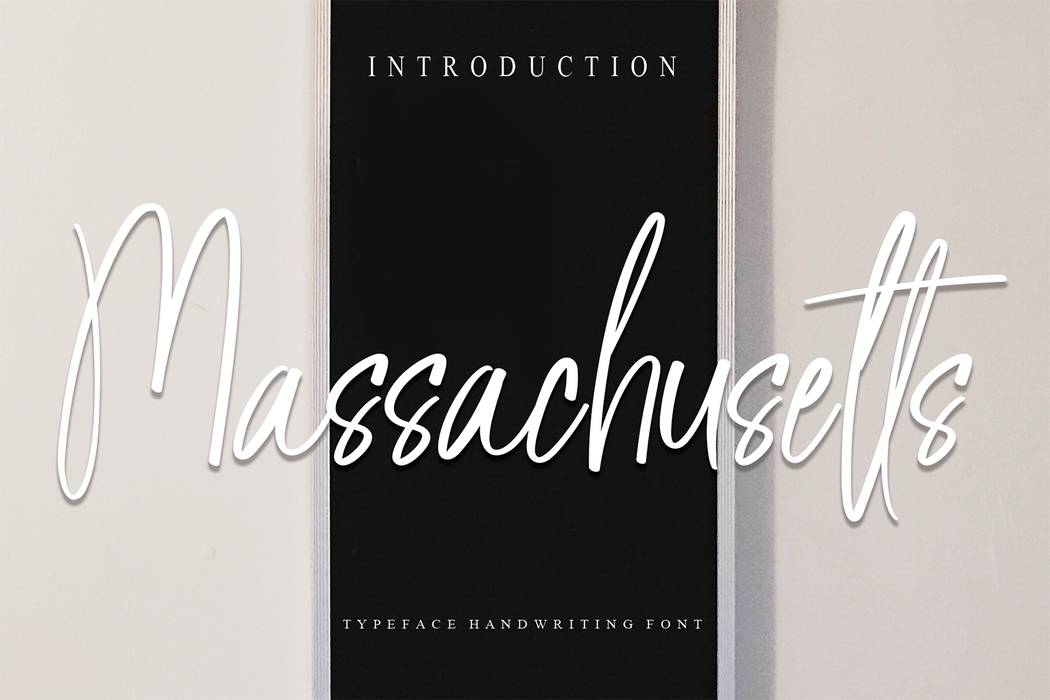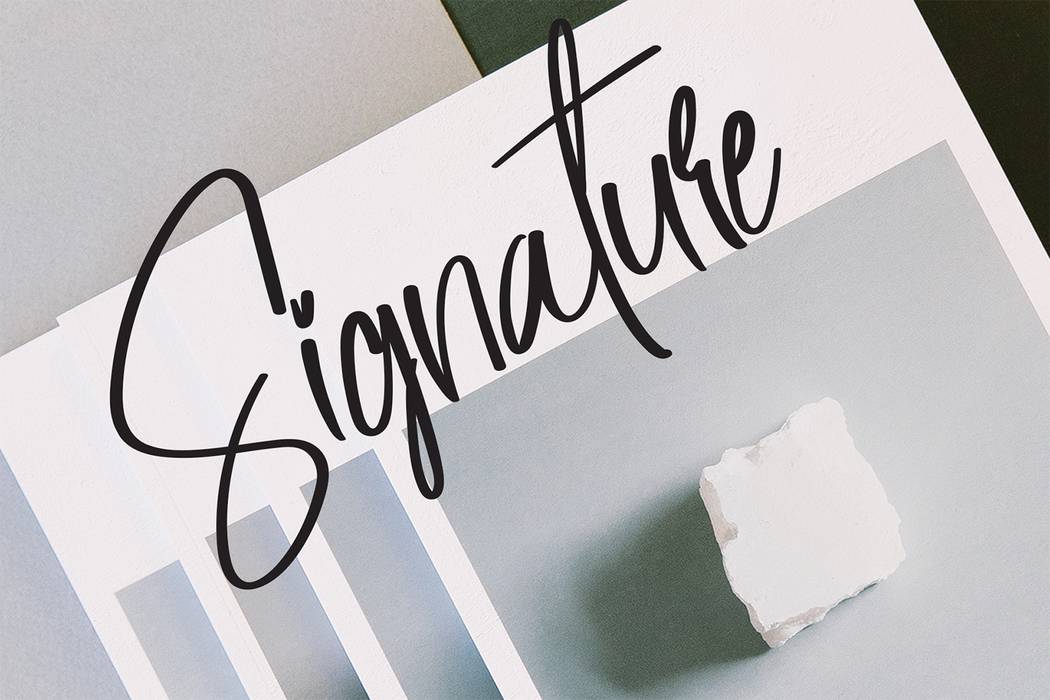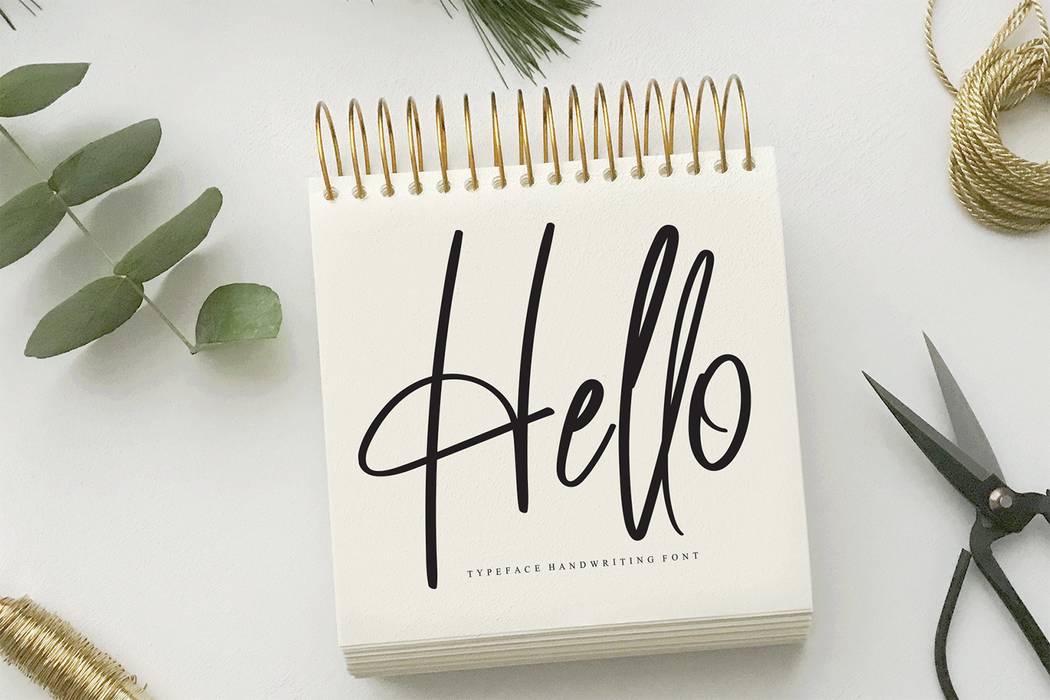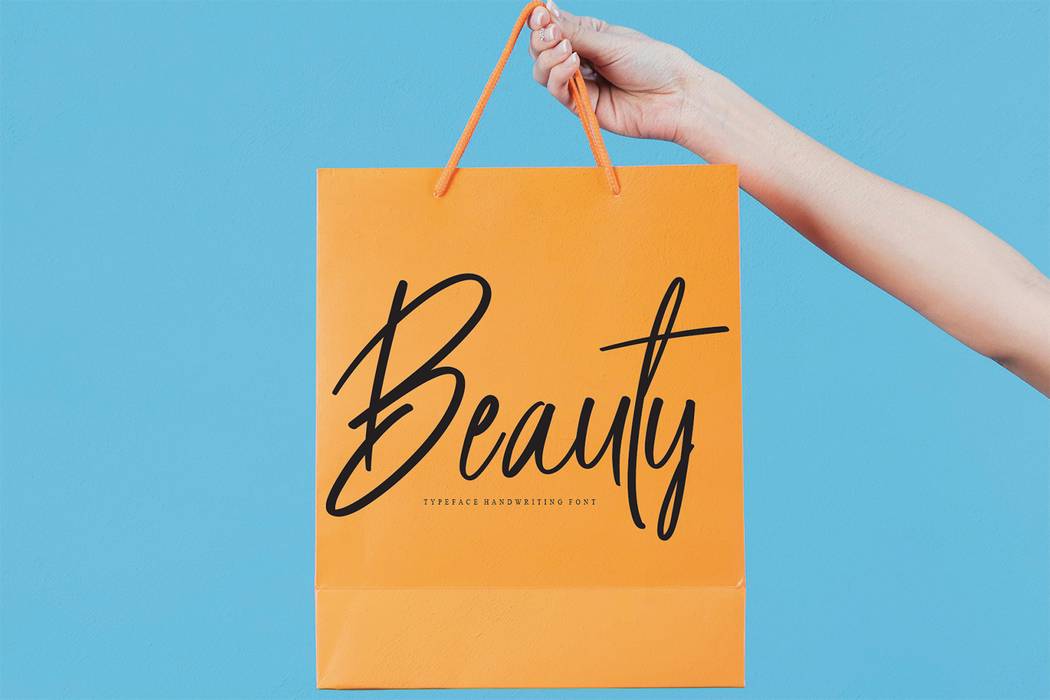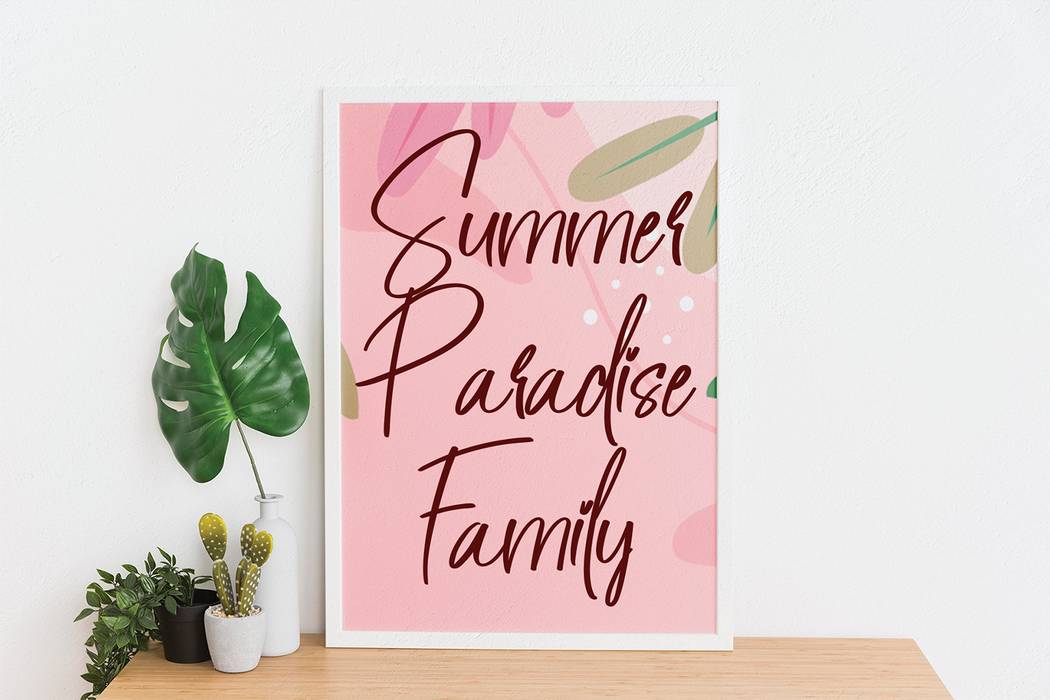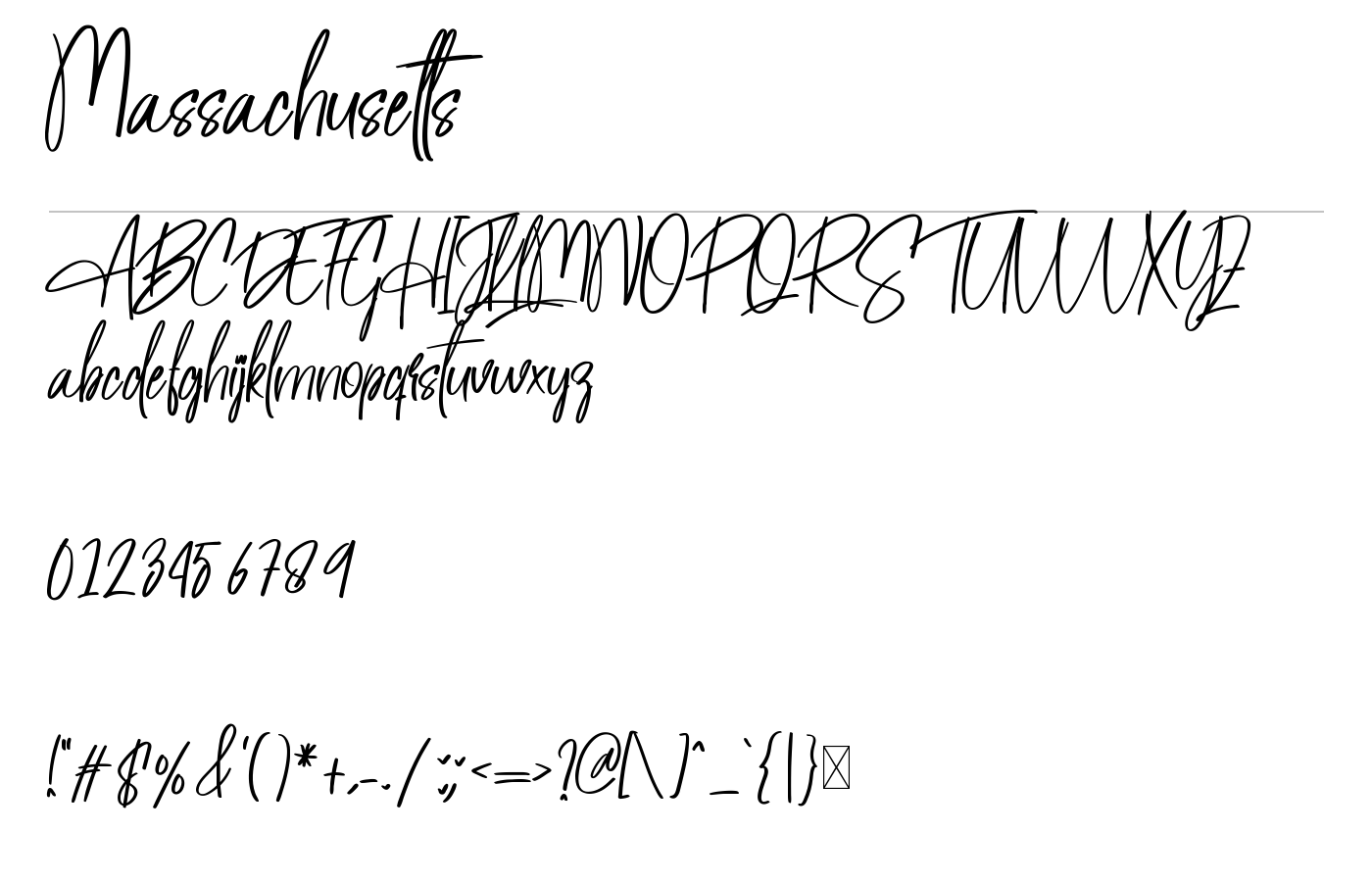
Massachusetts Font is a slender, elegant script typeface with a modern handwritten style, characterized by its tall, narrow letterforms and smooth, flowing strokes. Its light weight and slightly irregular lines give it a personal, artistic feel, making it perfect for creative branding, invitations, and stylish editorial use where a touch of sophistication and whimsy is desired. This font works best in display settings, where its unique personality can shine in headlines and logos.